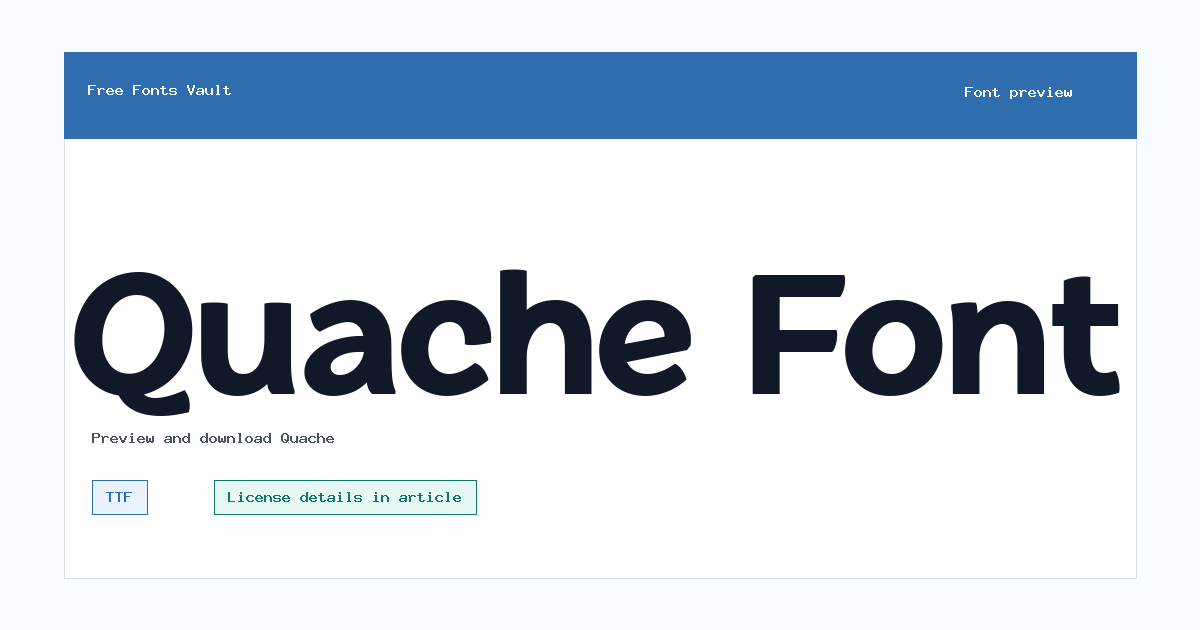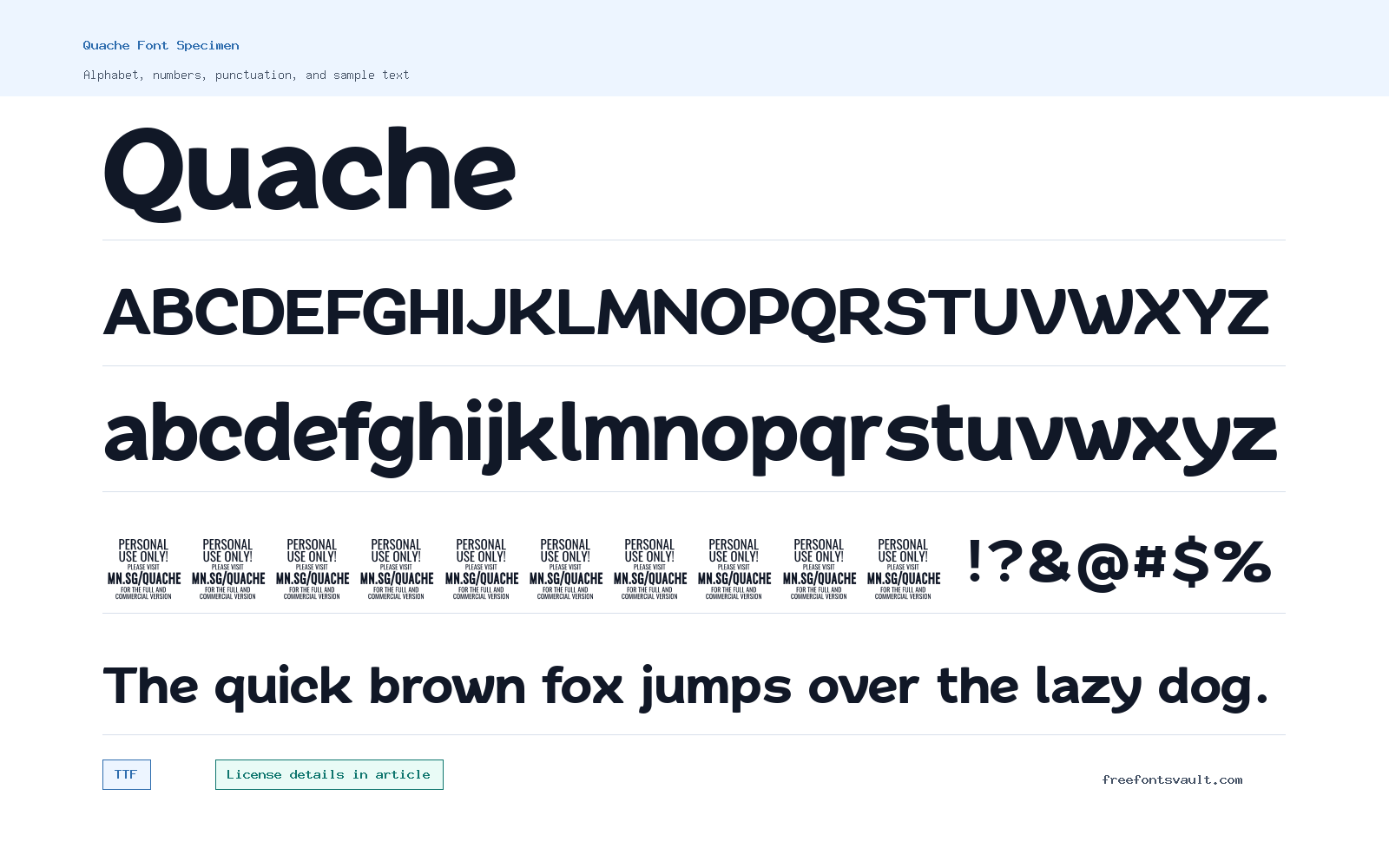
Quache
Quache Font
• Designer Mans Greback
• Foundry Mans Greback
Quache is a strong sans serif font by Måns Grebäck. The downloadable file on this page is a Black-weight TTF, making it a good choice for testing bold display text, headings, and short preview lines.
About Quache Font
Quache has a clean, heavy sans serif look with enough weight to stand out in large text. The Black style is best treated as a display font rather than a quiet reading face. Use the preview box to test brand names, title words, posters, labels, and short lines before downloading, especially if you plan to use tight spacing or all caps.
• Black-weight sans serif style for bold display settings
• Clean letter shapes that work best at larger sizes
• Useful for short titles, previews, and high-impact layout trials
• Poster headlines and title graphics
• Logo mockups and brand-name testing
• Social media images for personal projects
• Packaging or label concepts during early design drafts
• Bold website or app heading mockups before licensing
Try Quache in short words first. Heavy sans serif fonts can lose clarity in long paragraphs, very small sizes, or cramped spacing. If your design uses all caps, compare the preview at several sizes and adjust tracking so the letters have enough room.
Who designed Quache?
Quache is credited to Måns Grebäck.
What is Quache best used for?
It works best for short, bold display text such as headings, poster titles, logo mockups, labels, and social graphics. It is not ideal for long body text.